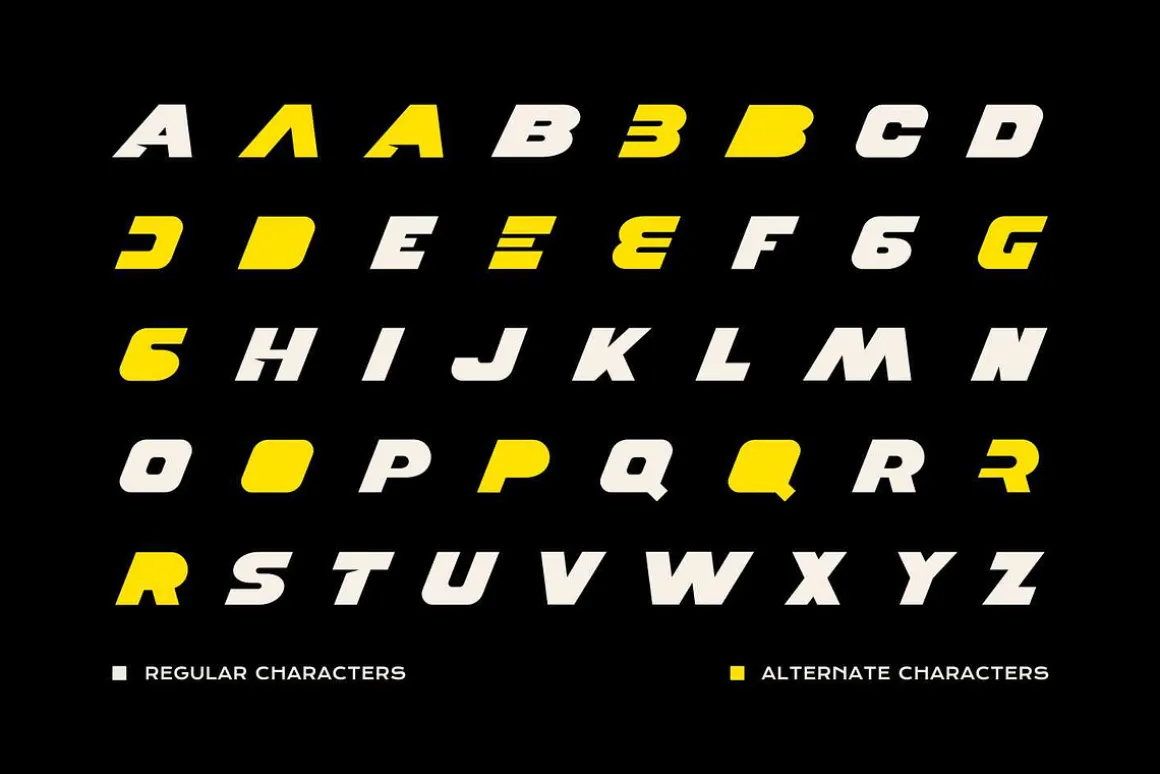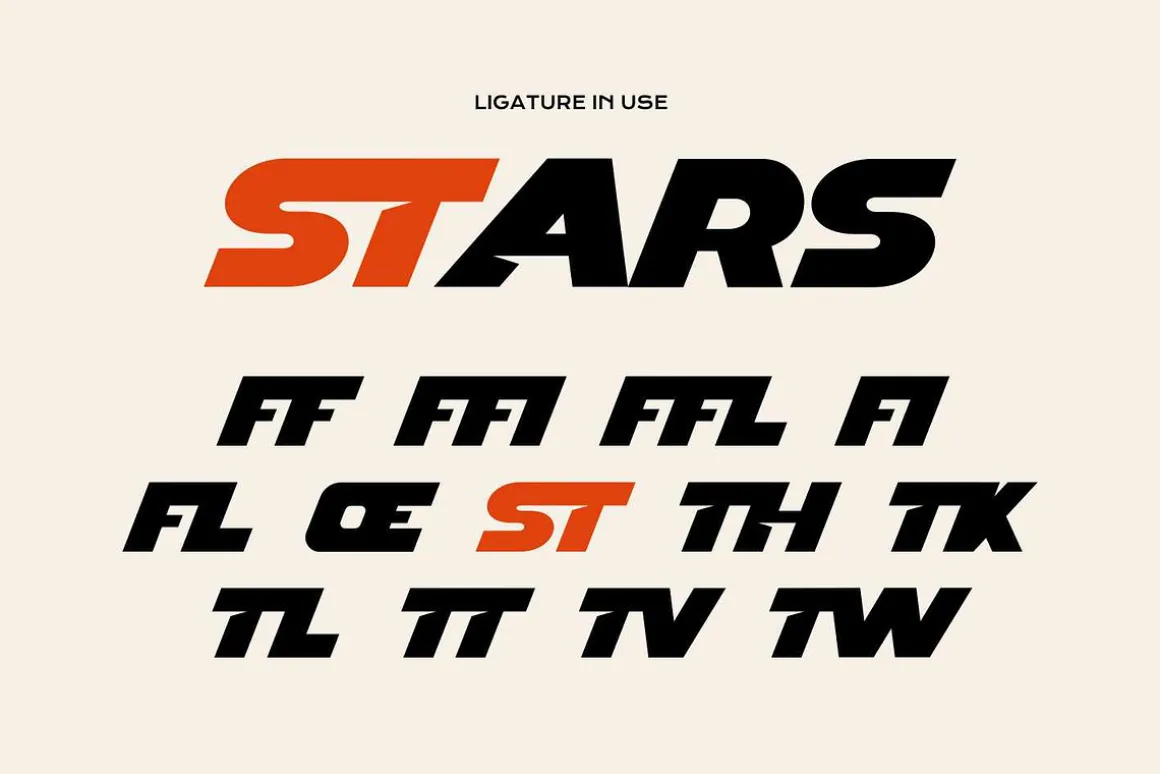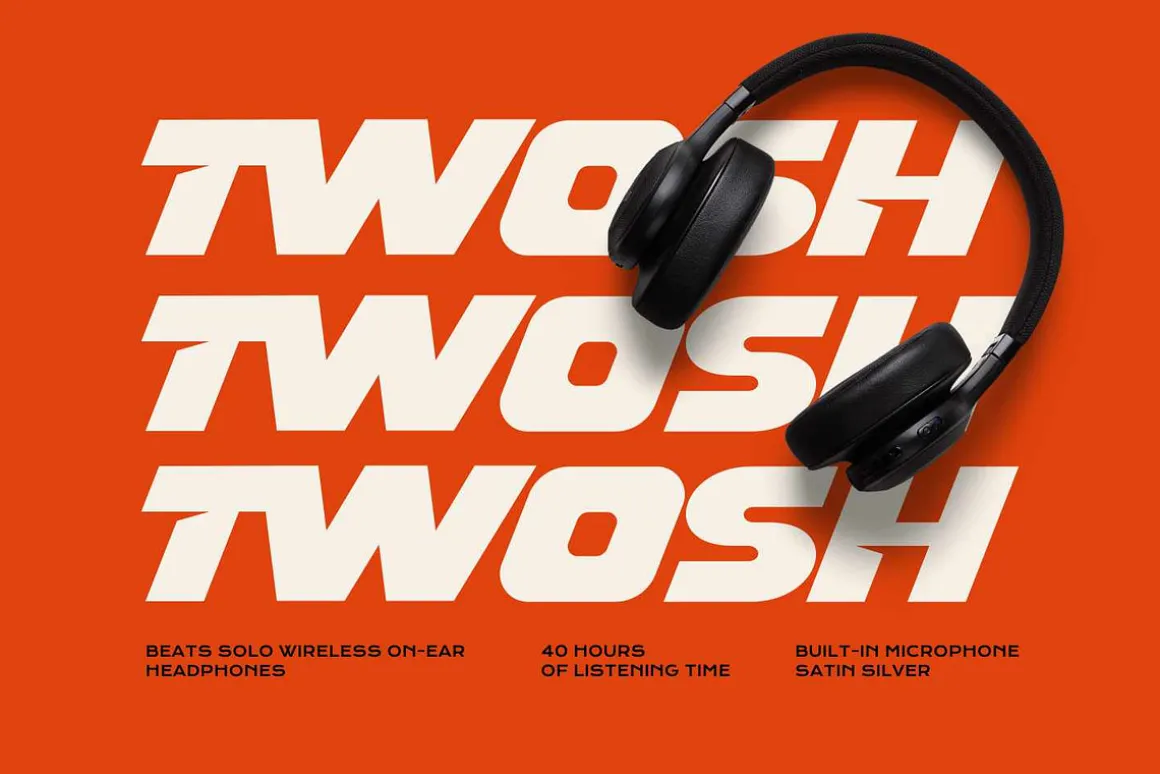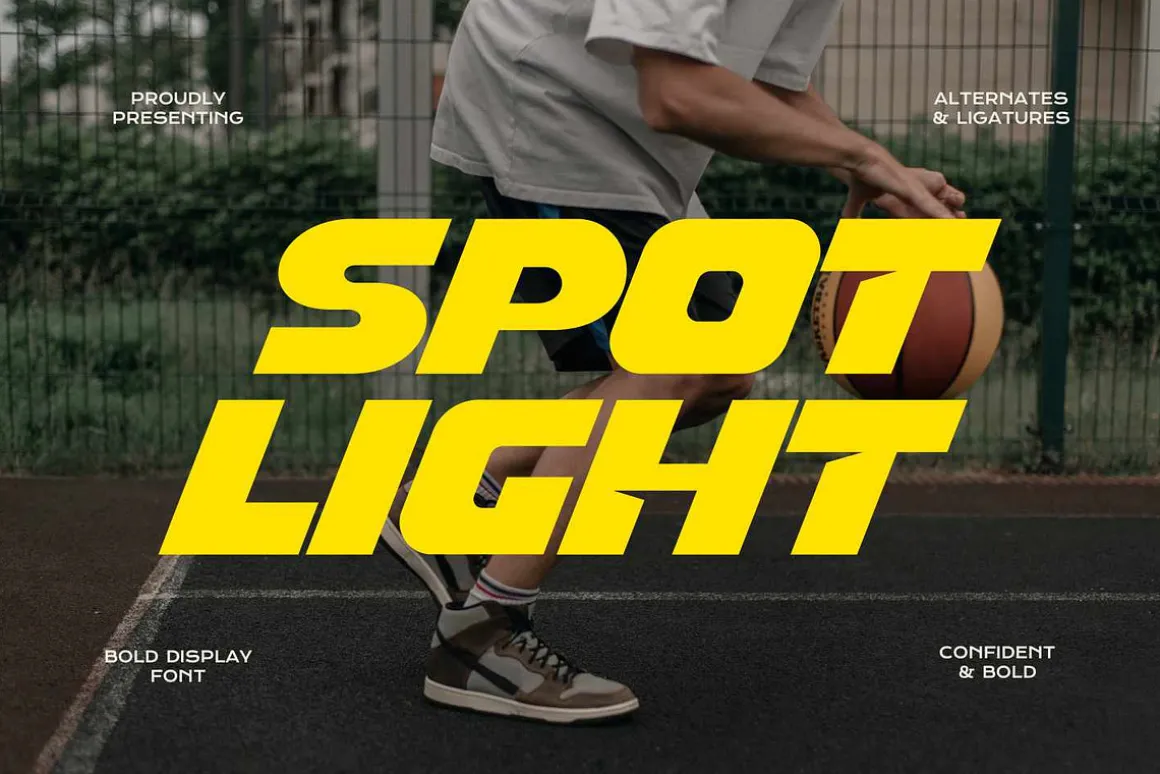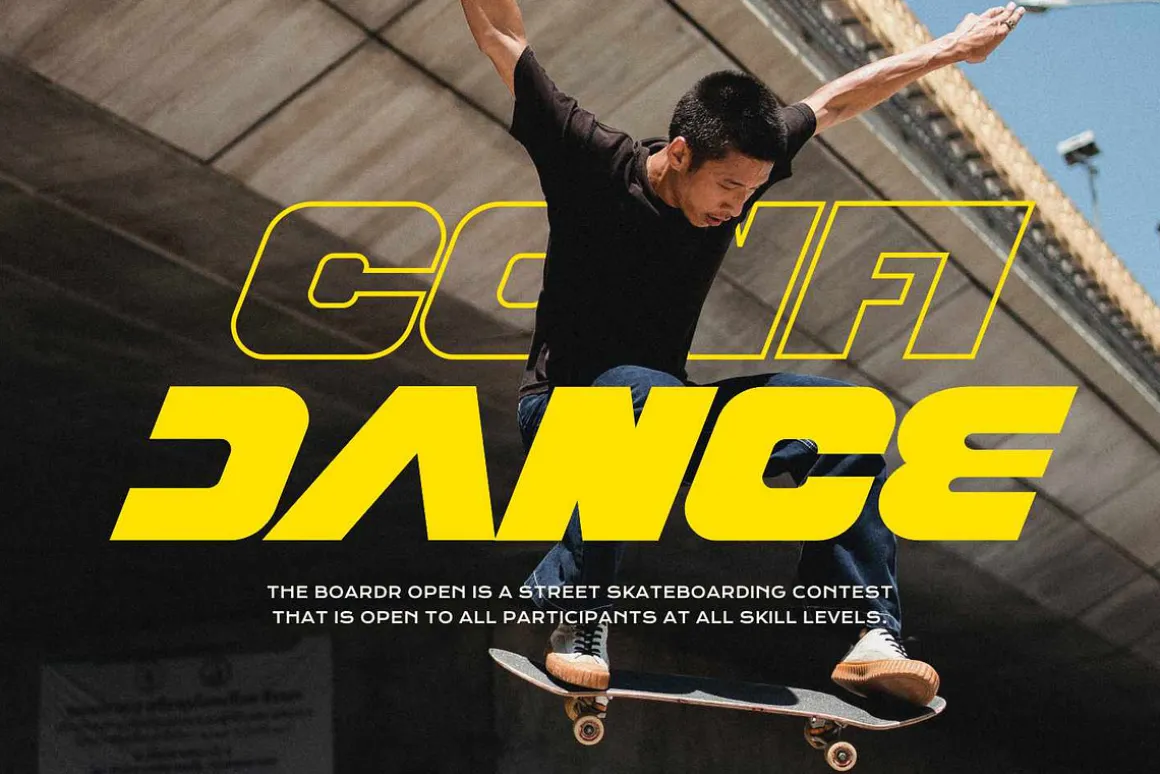
Meet Spot Light, a powerful and energetic bold display font designed to make an unforgettable impact. With its aggressive forward slant and sharp, confident letterforms, Spot Light injects a shot of adrenaline into any design. It’s built for speed, strength, and modern aesthetics.
Whether you’re branding a sports team, designing a tech startup logo, poster, streetwear, skateboarding contests, fast car racing sports titles, running matches, cycling, automotive game logos, jersey design, sport slogan, crafting apparel graphics, or any type of advertising purpose, this font provides the muscle and style you need to stand out.
- Alternates and Ligatures.